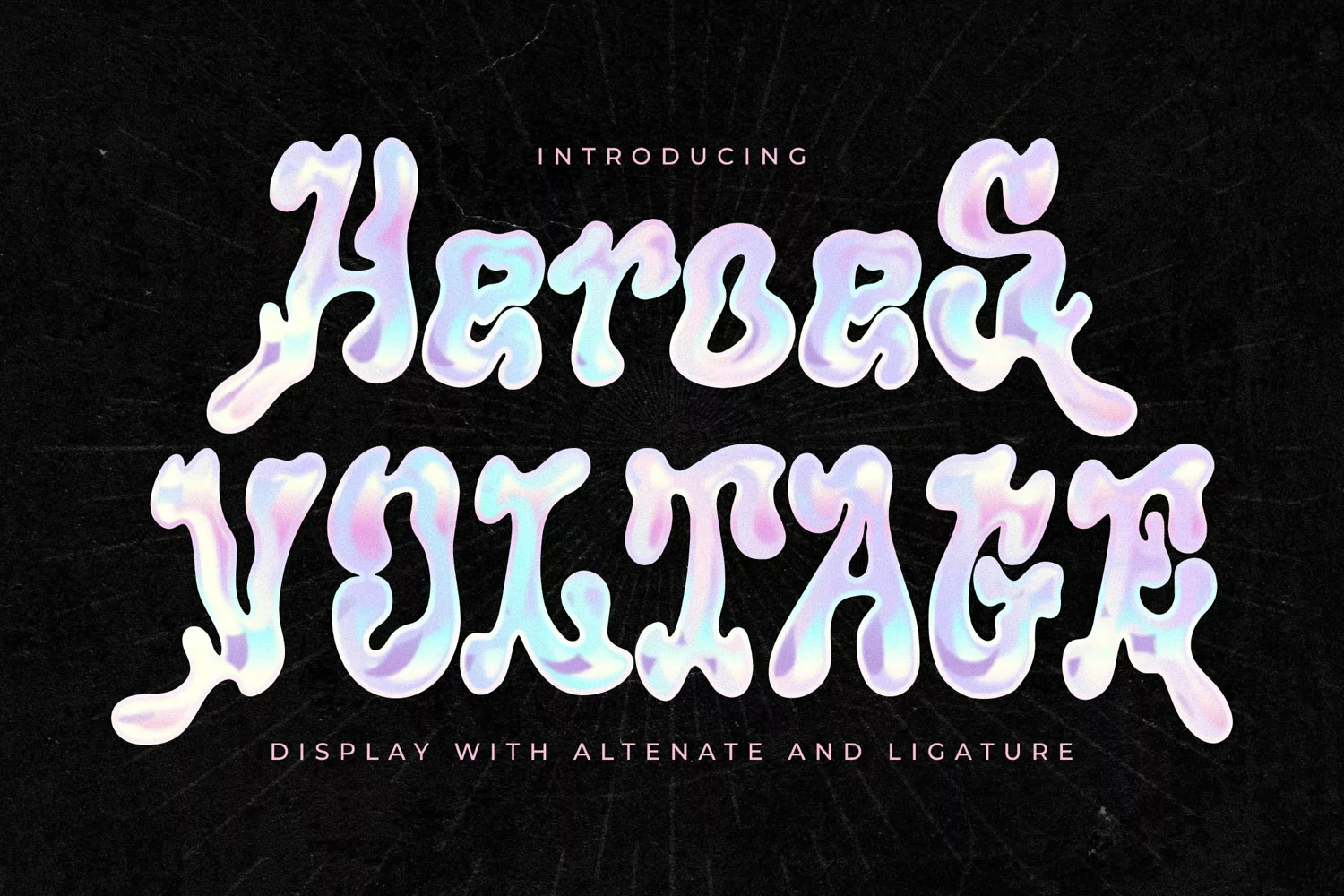
Proudly present Heroes Voltage Typeface , created by Storytype,
A serif modern and classic typeface that has own unique style & modern look.
This typeface is perfect for an elegant & luxury logo, book or movie title design, fashion brand, magazine, clothes, lettering, quotes, and so much more.
• Standard glyphs
• Alternate and Ligature